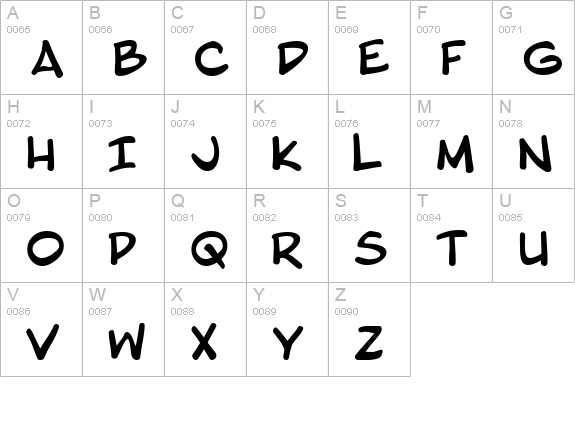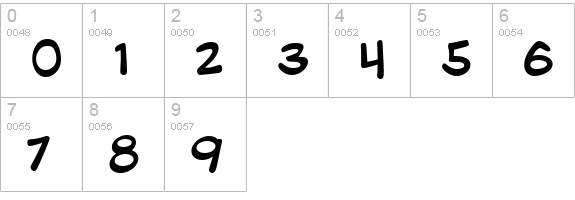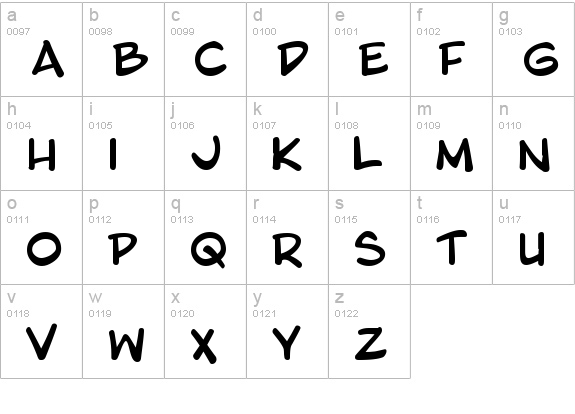
Blambot Pro is a versatile and stylish font that combines modern aesthetics with a touch of creativity. With its clean lines and sleek design, this font is perfect for a wide range of projects, from branding to editorial design. Its bold and impactful presence makes it ideal for headlines and titles, while its legibility ensures readability even at smaller sizes. What makes Blambot Pro even more appealing is that it is available for free download at FontsMarket.com. This means that you can easily access this professional-grade font without any cost, allowing you to elevate your designs without breaking the bank. Whether you're a seasoned designer looking for a fresh font or a newcomer exploring typography for the first time, Blambot Pro is a fantastic choice that won't disappoint. Download it today and add a touch of sophistication to your projects!